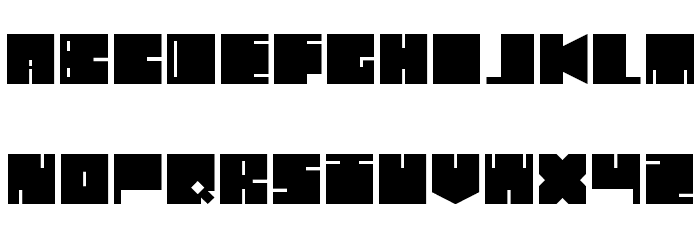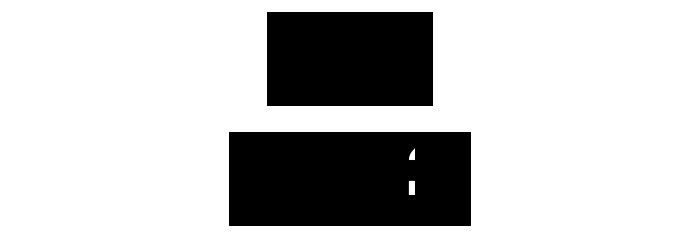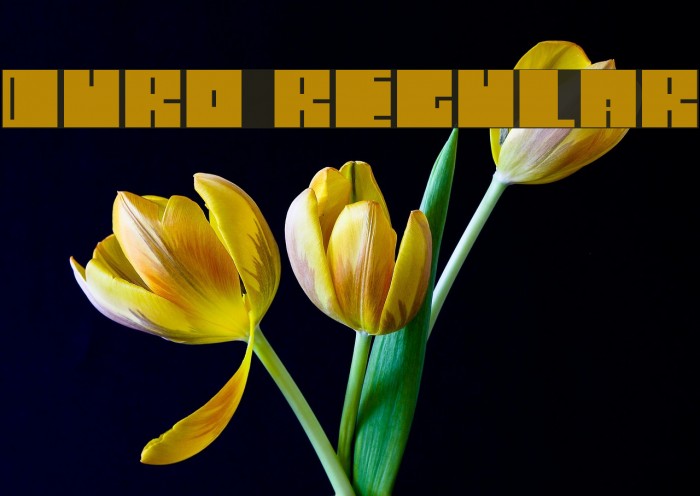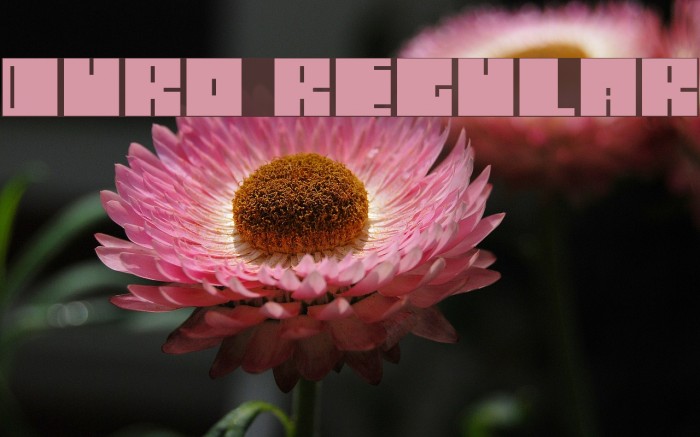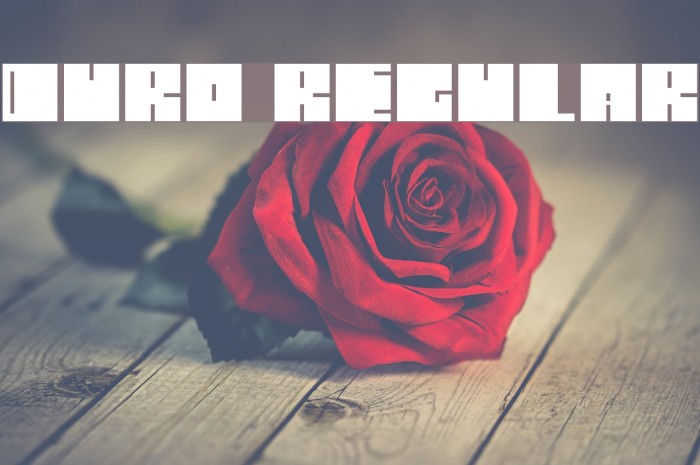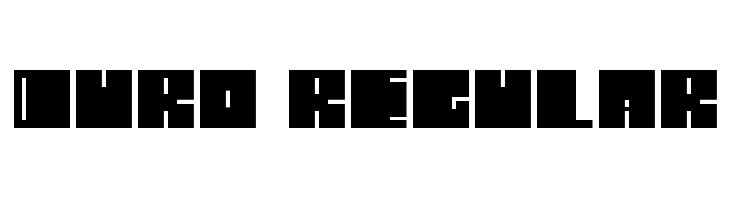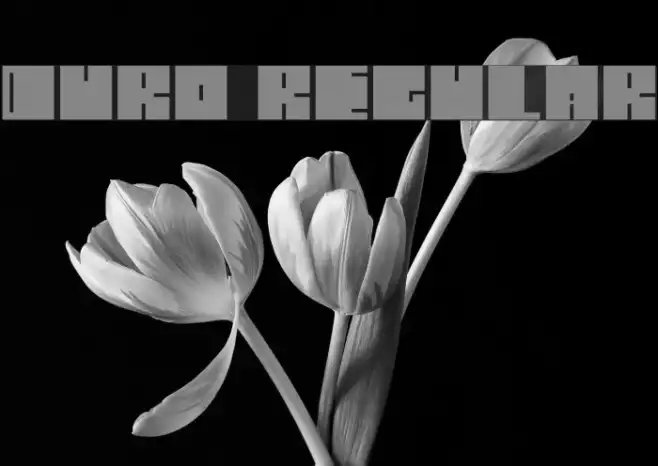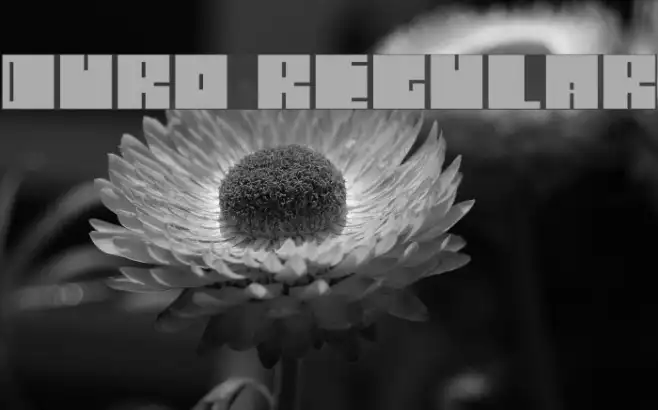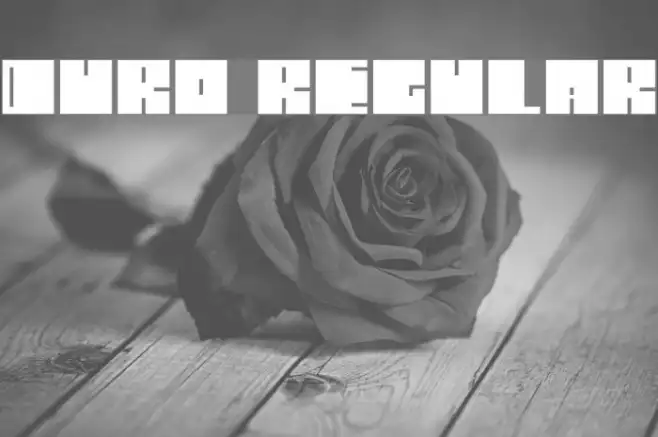
Duro Regular Font
This font features a bold, geometric design with a strong, industrial feel. The characters are constructed with solid, block-like shapes, giving them a robust and sturdy appearance. The angular edges and uniform thickness throughout the letters contribute to a modern, edgy style. The font's distinctiveness is enhanced by its sharp corners and the consistent use of straight lines, which create a sense of precision and strength. The uppercase and lowercase letters maintain a cohesive look, while the numbers and special characters seamlessly integrate into the overall design. This font is ideal for projects that require a bold statement and a contemporary aesthetic.
A bold, geometric font with a strong, industrial style.
- Proposed Projects: Ideal for branding, posters, headlines, and any design needing a bold, modern touch.